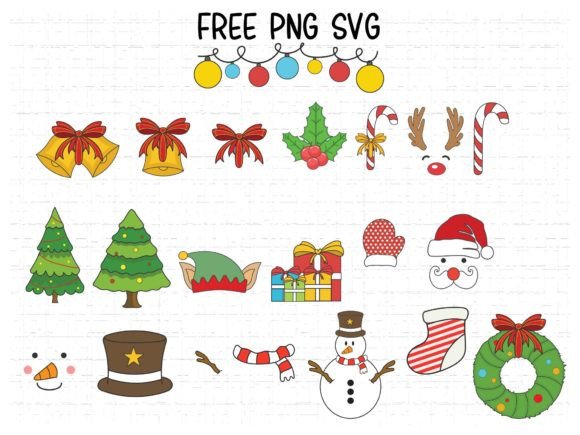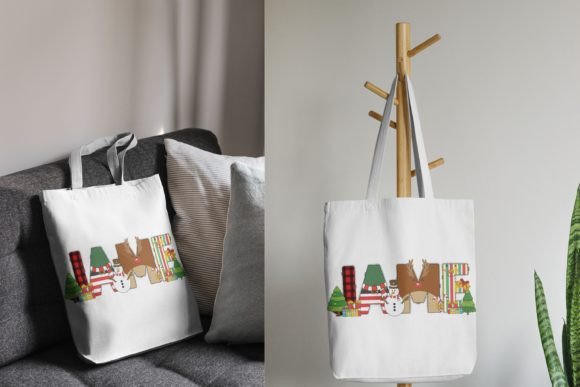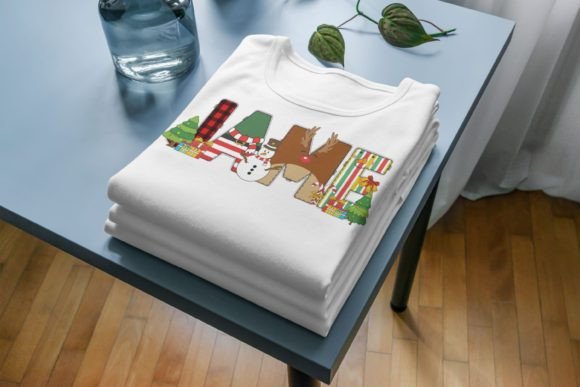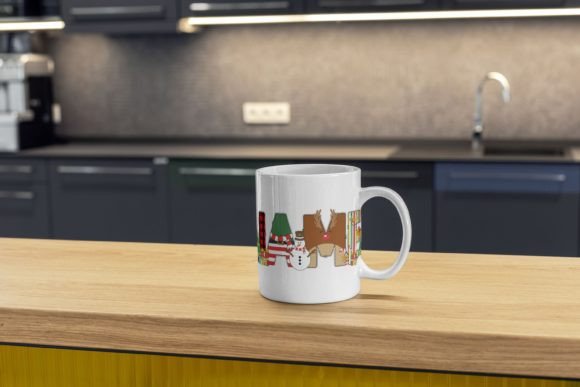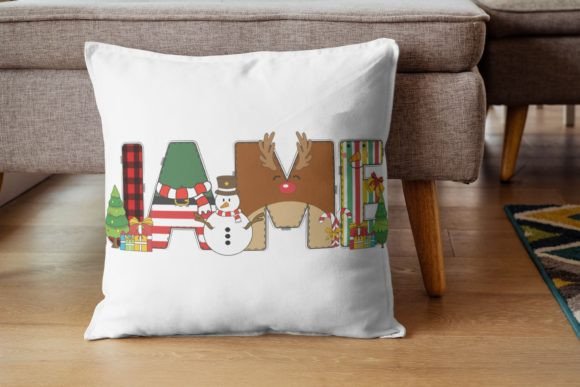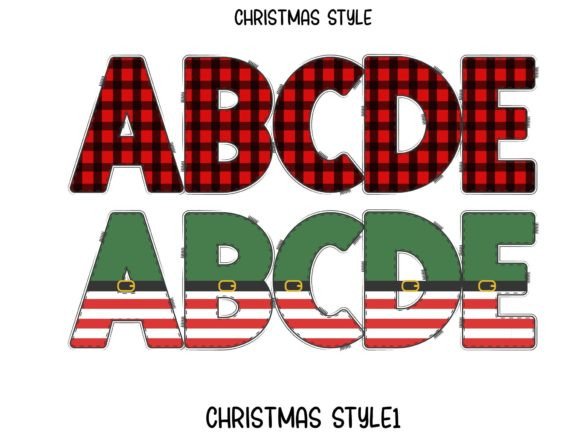
Get Ready to Deck the Halls with the Perfect Font
It’s that time of the year when creativity knows no bounds, and the festive spirit takes over. You’re rummaging through your craft supplies, searching for the perfect combination of colors and textures to create a one-of-a-kind Christmas gift for your loved ones. As you scroll through your font collection, you stumble upon a little secret that’s about to elevate your holiday designs to a whole new level.
Introducing the Christmas Style Font, a delightful and festive color font designed to add a touch of magic to your Christmas-themed projects. Whether you’re a seasoned designer or a crafty enthusiast, this font is sure to bring joy and excitement to your creations. With its cute and playful style, it’s the perfect addition to your holiday design arsenal, guaranteed to make your projects stand out and spread cheer.
Christmas Style Font Key Features
- Unique Characteristics: Features festive holiday icons, ornaments, and patterns, making it perfect for Christmas-themed designs
- Font Style: Includes 5 font styles: Regular, Italic, Bold, Bold Italic, and Ornate
Review of Christmas Style Font
Overall, I think Christmas Style Font is a fun and festive addition to any holiday project. Here are some things that really work well:
- ✨ Unique and playful design: The font has a fun, handwritten feel that’s perfect for adding some personality to your designs.
- ✨ High level of customization: The font comes with a range of different styles and variations, so you can really make it your own.
- ✨ Great for headings: The font is bold and eye-catching, making it perfect for headings and titles.
- ⚠️ Limited font sizes: While the font looks great at larger sizes, it can become a bit pixelated at smaller sizes.
- ⚠️ Not suitable for body text: The font is a bit too ornate and distracting to use for body text, so you’ll want to stick to it for headings and titles.
Overall, I think Christmas Style Font is a great choice for anyone looking to add some holiday cheer to their designs. Just be mindful of the limitations and use it judiciously.
The Christmas Style Font is perfect for creating festive and holiday-themed designs. Here are some tips and common use cases:
- Use the font to create holiday cards, invitations, and gift tags.
- Apply the font to your website’s header or footer for a festive touch.
- Use the font to create social media graphics and posts for the holiday season.
- Customize the font to match your brand’s color scheme and style.